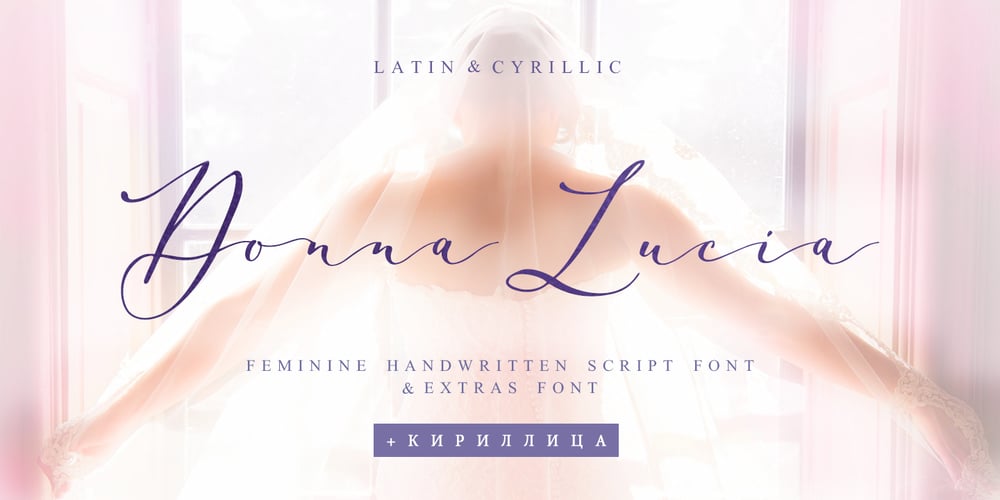
Donna Lucia Cyrillic Font Family was designed by Iryna Dviliuk and published by Ira Dvilyuk. Donna Lucia Cyrillic contains 2 styles and family package options. Charming young Italian lady named Donna Lucia that is my handwritten script font. Donna Lucia is feminine and graceful calligraphic handwritten script font as plus a Symbols font with 52 lovely hand-drawn swashes and illustrations.Donna Lucia script is perfect for branding, logos, wedding stationery, social media, packaging, and other projects that require an elegant touch.Donna Lucia feminine font includes also Cyrillic glyphs. Uppercase lowercase and lowercase with flourishes.Donna Lucia script contains a full set of uppercase letters and 3 full sets of lowercase letters, (standard, alternative, and initial form) and 27 ligatures – which can be used to create a handwritten calligraphy look. Donna Lucia Symbols is a font with over 52 hand-drawn elements, illustrations, and swashes and can help to make your design more original. Combine and merge swashes and illustrations to create your own designs and make borders, frames, dividers, logos, and more (just use A-Z or a-z and 0-9 keys in the included Donna Lucia Symbols font). A different symbol is assigned to each uppercase or lowercase standard character, so you do not need graphics software, just type the letter you need.Multilingual Support for 31 languages: Latin glyphs for Afrikaans, Albanian, Basque, Bosnian, Catalan, Danish, Dutch, English, Estonian, Faroese, Filipino, Finnish, French, Galician, Indonesian, Irish, Italian, Malay, Norwegian Bokmål, Portuguese, Slovenian, Spanish, Swahili, Swedish, Turkish, Welsh, Zulu. And Cyrillic glyphs support for Russian, Belorussian, Bulgarian and Ukrainian languages.